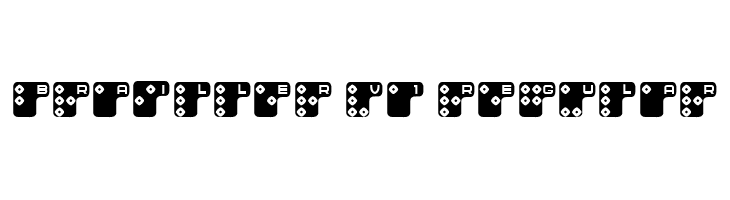
A modern font combining Braille patterns with Latin characters for a tactile and visual experience.
A visually striking font that combines Braille dots with a bold, modern design.